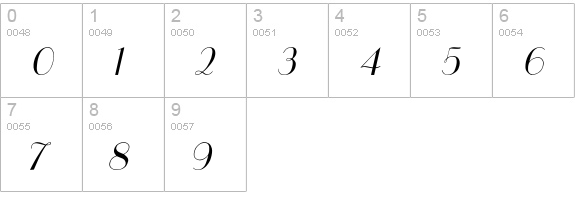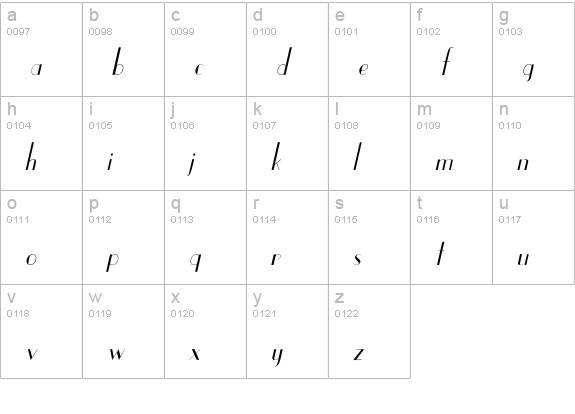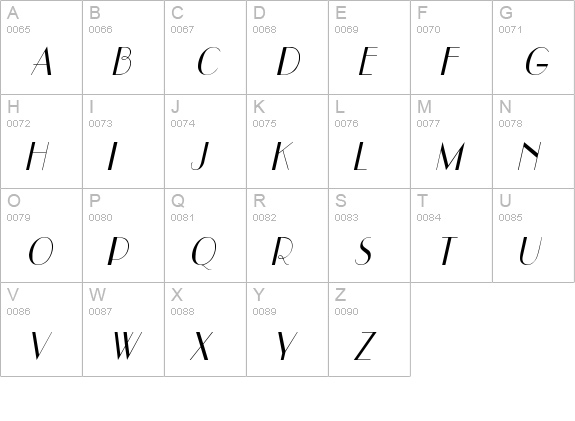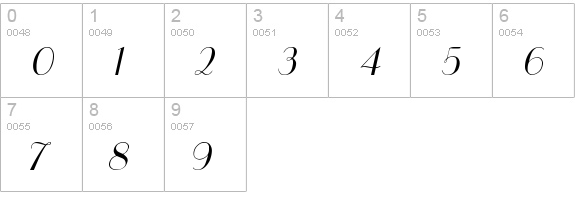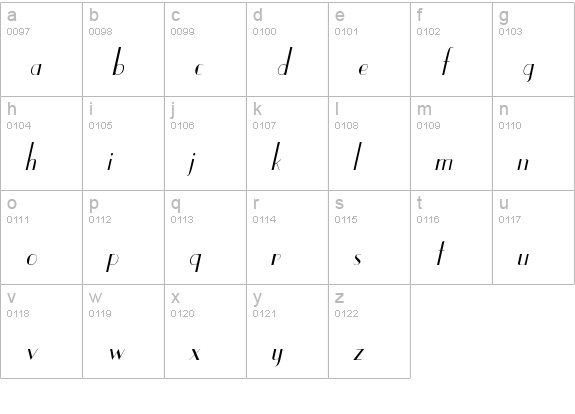
UppEa Th Italic is a distinctive, italic variant in the UppEa typeface family \xE2\x80\x94 well suited to design and typography projects.
UppEa Th Italic is a stunning and elegant font that effortlessly combines classic sophistication with a modern twist. Its graceful and flowing letterforms captivate the eye and lend a touch of refinement to any project. This font exudes a sense of timeless beauty, making it perfect for both formal and informal designs. With its slanted and italicized style, UppEa Th Italic adds a sense of dynamism and movement to your typography. Each character is meticulously crafted, with delicate curves and precise angles that create a harmonious and balanced overall appearance. Whether used for headings, titles, or body text, this font commands attention and draws the reader in. One of the most appealing aspects of UppEa Th Italic is its versatility. It effortlessly adapts to a wide range of design themes, from luxurious branding and high-end fashion to contemporary and artistic projects. Its clean and refined aesthetic ensures that it remains legible and impactful, even at small sizes. And the best part? UppEa Th Italic is available for free download at FontsMarket.com. This means that you can enjoy the beauty and sophistication of this font without any cost. Whether you are a professional designer or a casual user, UppEa Th Italic offers you the opportunity to enhance your projects with a touch of elegance, all without breaking the bank. So, why wait? Discover the endless possibilities that UppEa Th Italic brings to your designs and elevate your typography to new heights. Download this remarkable font for free at FontsMarket.com and let your creativity soar.